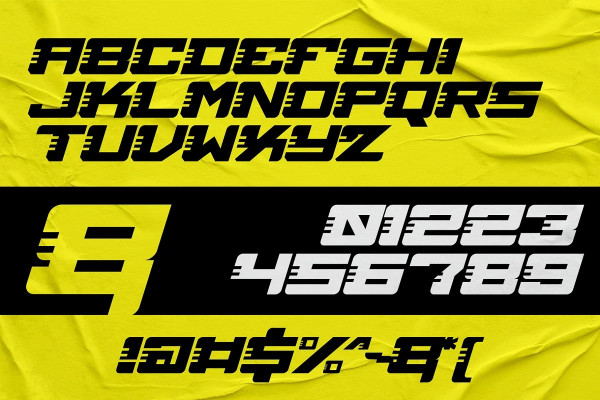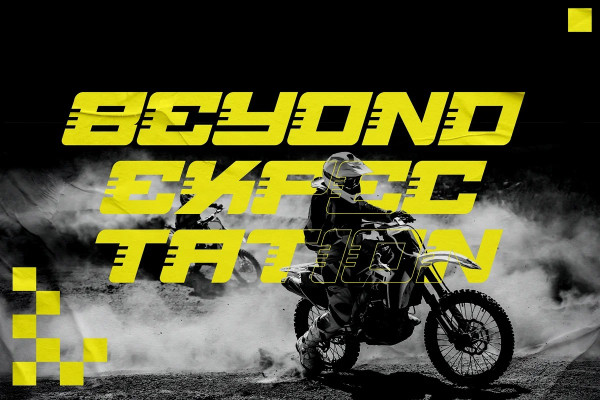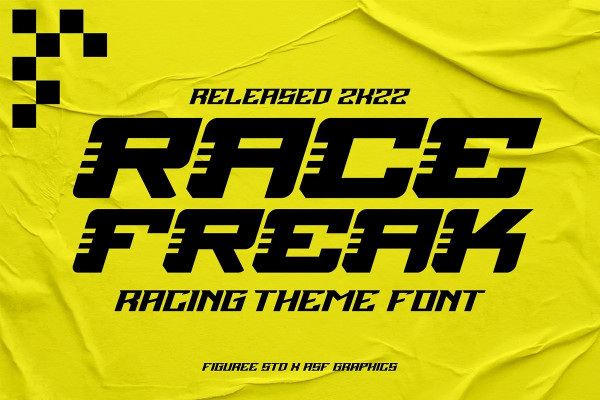
Race Freak Font
Race Freak Font is Powerful Racing Theme Font. The font is ready to be used for your racing sports or automotive-related projects. Built to be perfect for headlines, jerseys, logos, branding, posters, packaging, advertising, and much more.